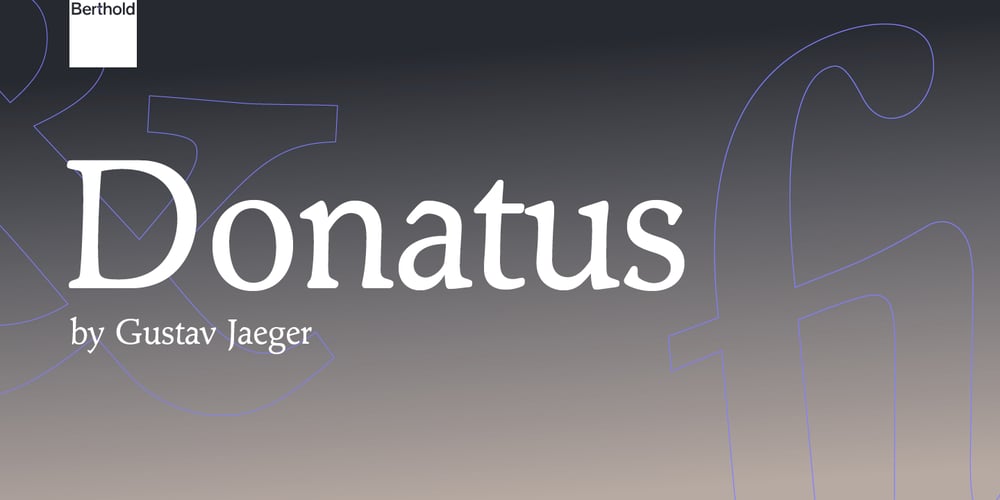
Donatus Font Family was designed by Gustav Jaeger and published by Berthold. Donatus contains 6 styles and family package options. Designed for Berthold by Gustav Jaeger in 1990, Donatus’ legibility makes it an appropriate choice for text.